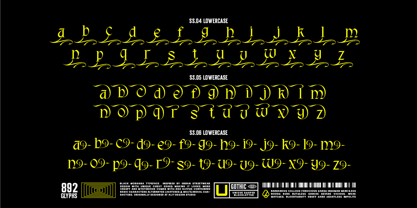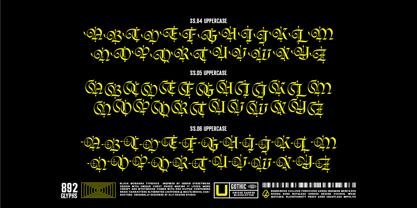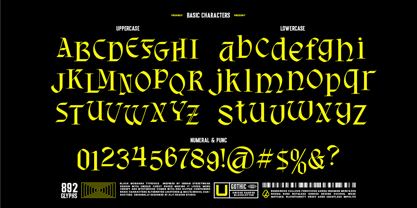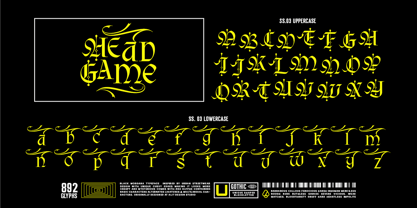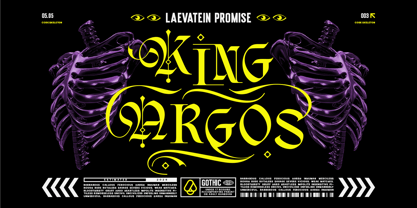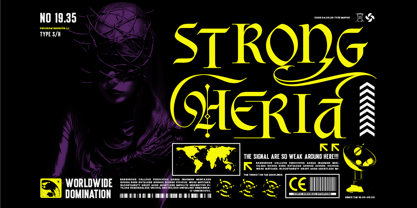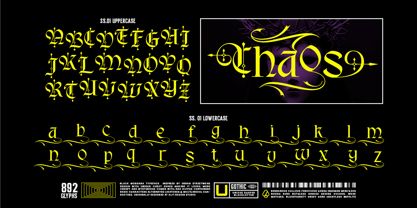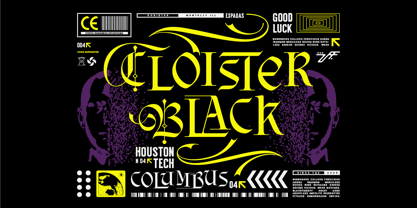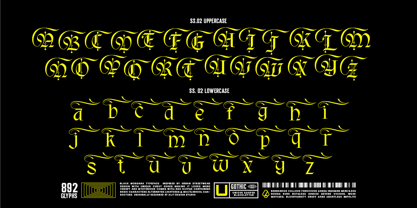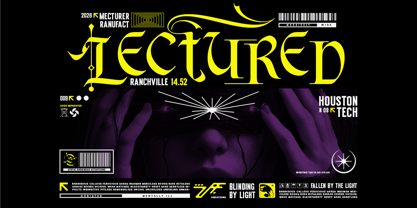
Black Morgana
by Alit Design
The Black Morgana Font Family was designed by Alit Suarnegara and published by Alit Design. Black Morgana contains 1 styles. More about this family
Plunge into the dark, mysterious, and unapologetically bold realm of the Black Morgana Typeface.
Inspired by the raw energy of urban streetwear and the timeless elegance of gothic blackletter typography, Black Morgana is designed to make a statement. This typeface masterfully blends harsh, sharp angles with unique, sweeping, curvy edges, creating a look that is simultaneously aggressive and deeply elegant.
Whether you are designing for a modern apparel brand, a heavy metal album cover, or edgy editorial layouts, Black Morgana delivers a captivating "chaotic beauty" that instantly grabs attention.
But Black Morgana isn't just about looks—it is an incredibly powerful and versatile design tool. Boasting a massive 892 glyphs, this feature-rich font gives you ultimate control over your typography. With six distinct stylistic sets, you can transform simple words into complex, customized logos and wordmarks in seconds.
Key Features:
• Massive Glyph Count: 892 total glyphs for unparalleled versatility.
• Basic & Extended Characters: Uppercase, Lowercase, Numerals, and full Punctuation.
• 6 Stylistic Sets (SS.01 - SS.06): Highly detailed alternate characters featuring intricate swashes, extended crossbars, and ornamental nodes (diamond spikes) to create custom-looking lettering.
• Extensive Ligatures: A huge library of custom-crafted ligatures ensures smooth, unique, and professional text flow.
• Dingbat Ligatures: Includes beautiful ornamental swooshes and dividers to perfectly frame your text.